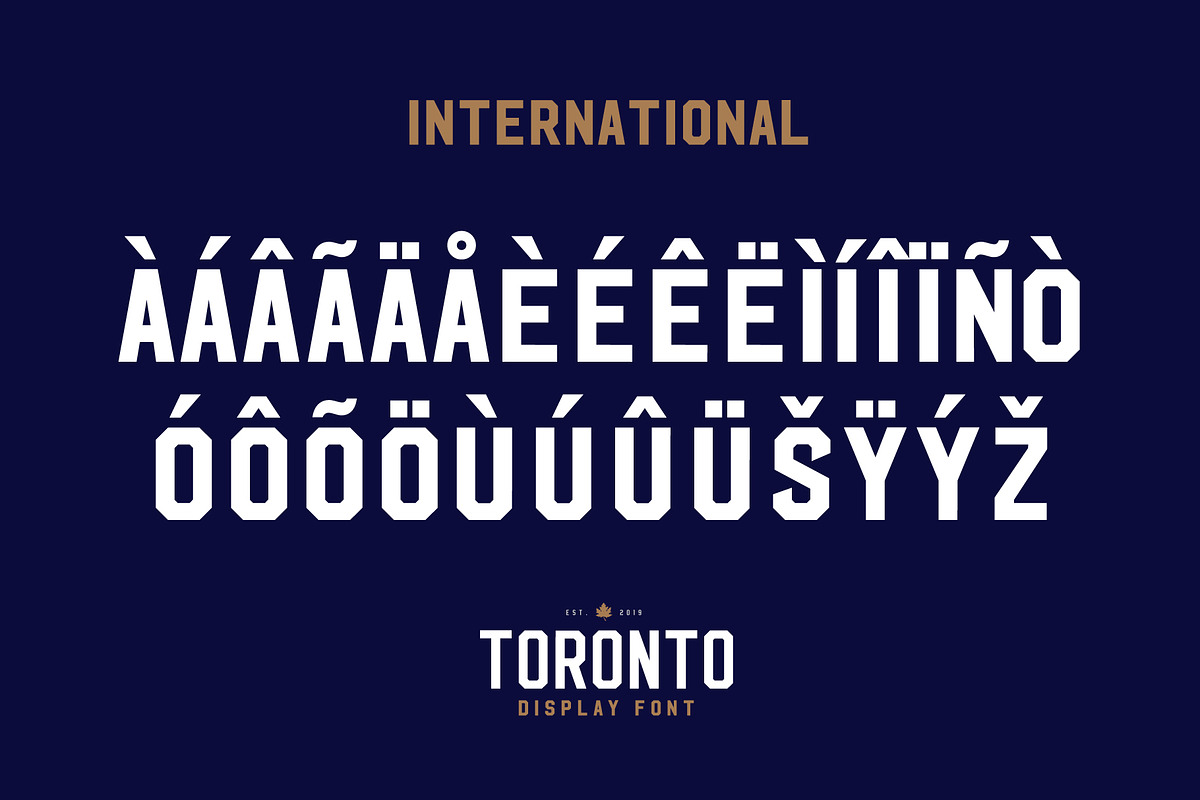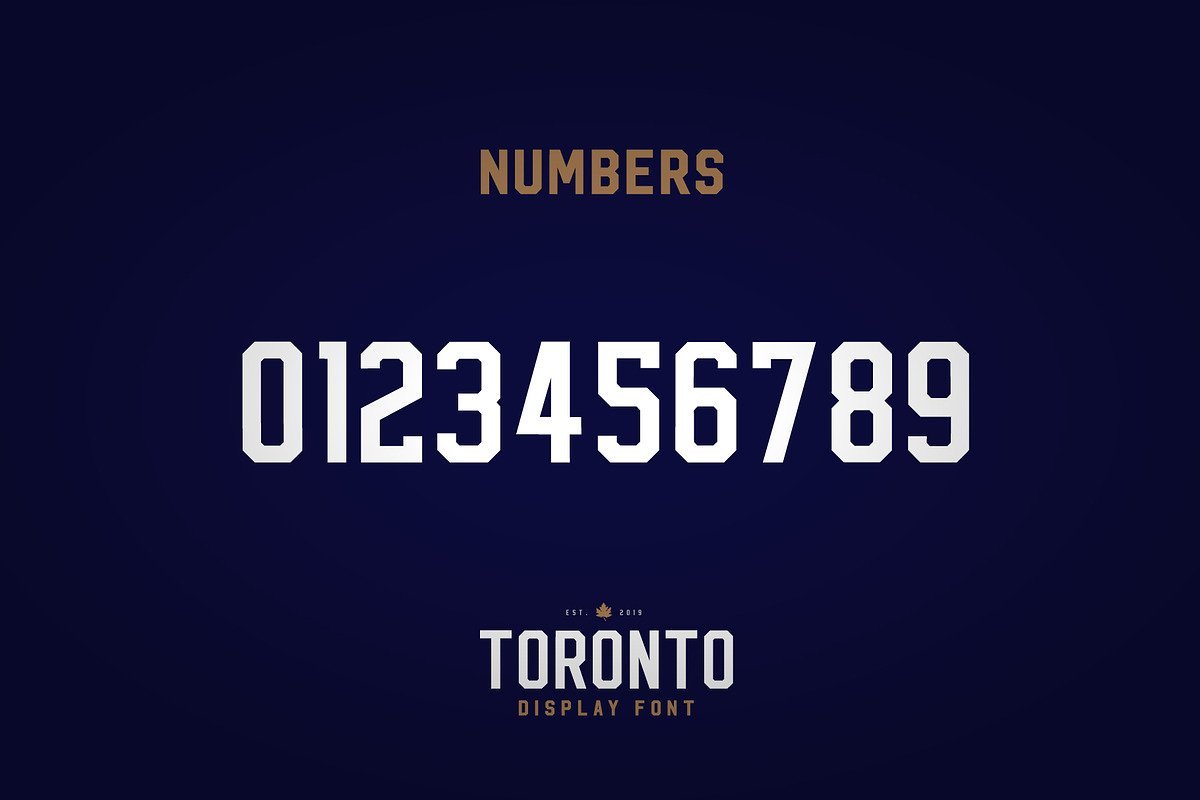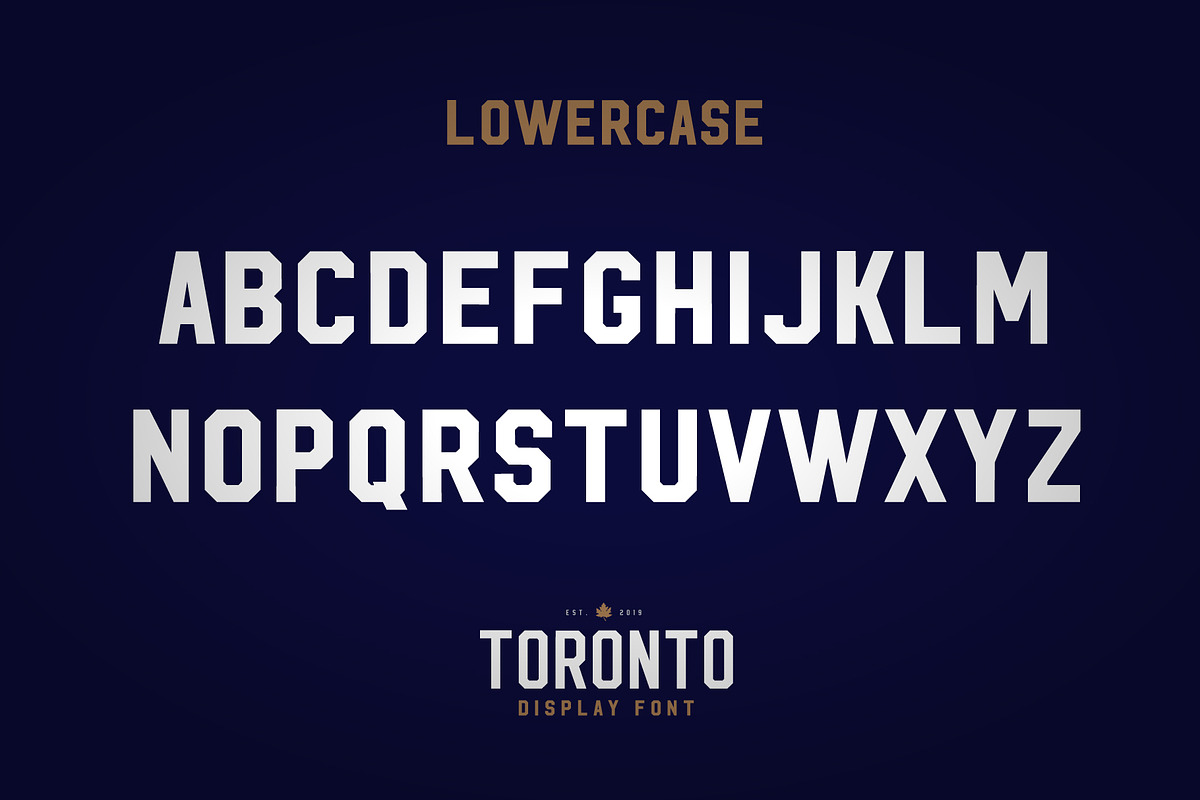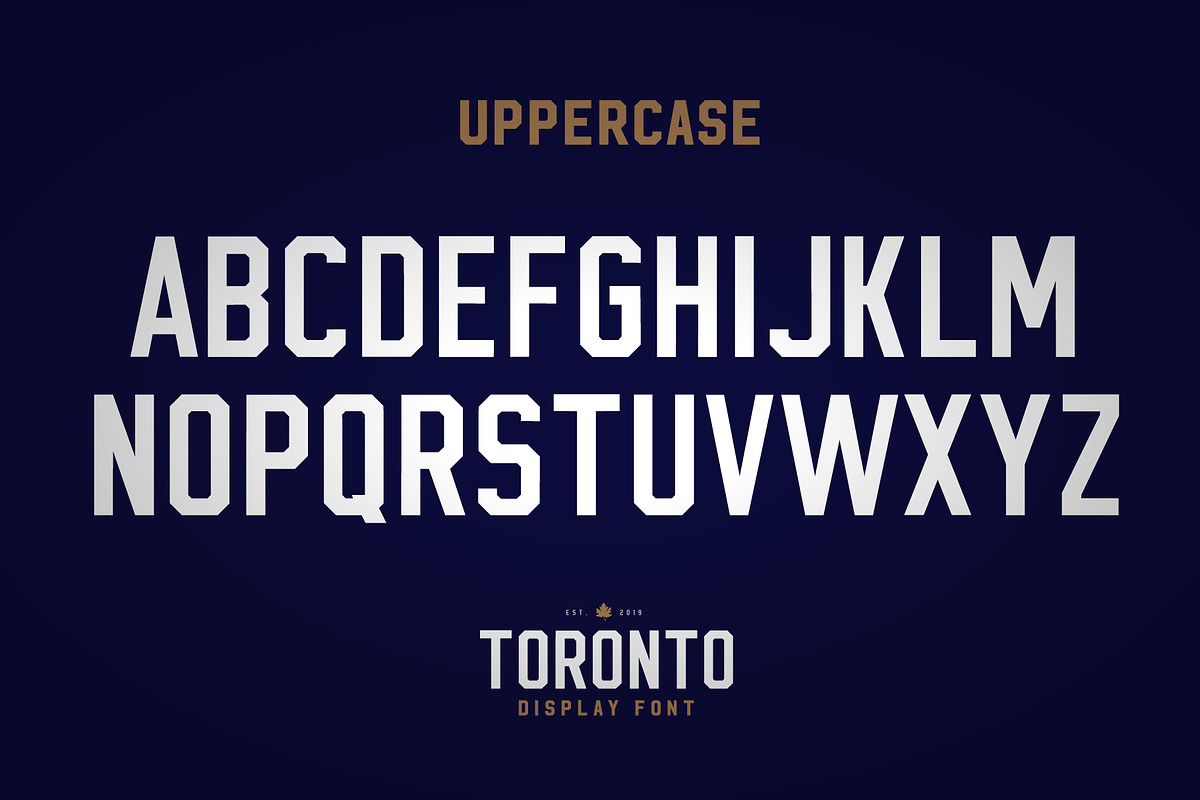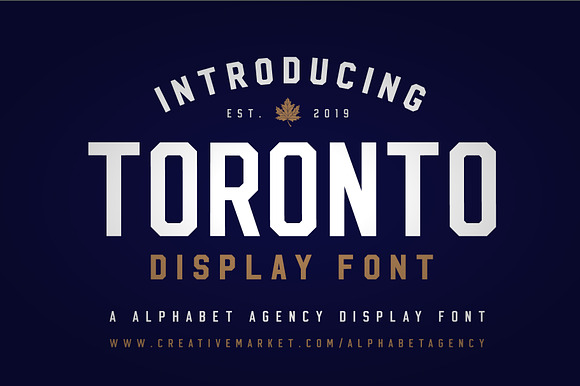
TORONTO DISPLAY FONT
Why TORONTO DISPLAY FONT is worth a look
TORONTO DISPLAY FONT by Alphabet Agency fits naturally into Branding, posters, packaging, typography.